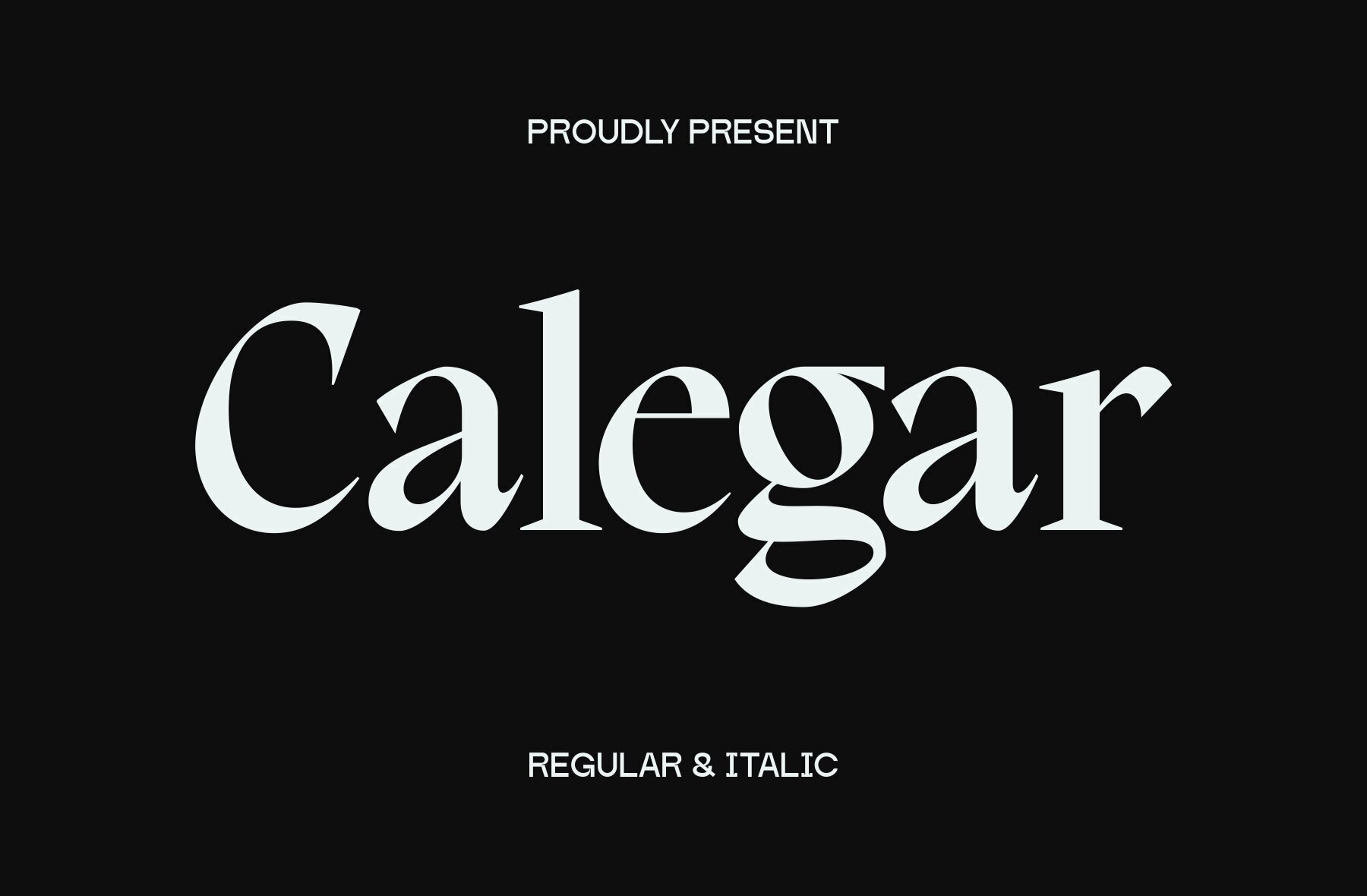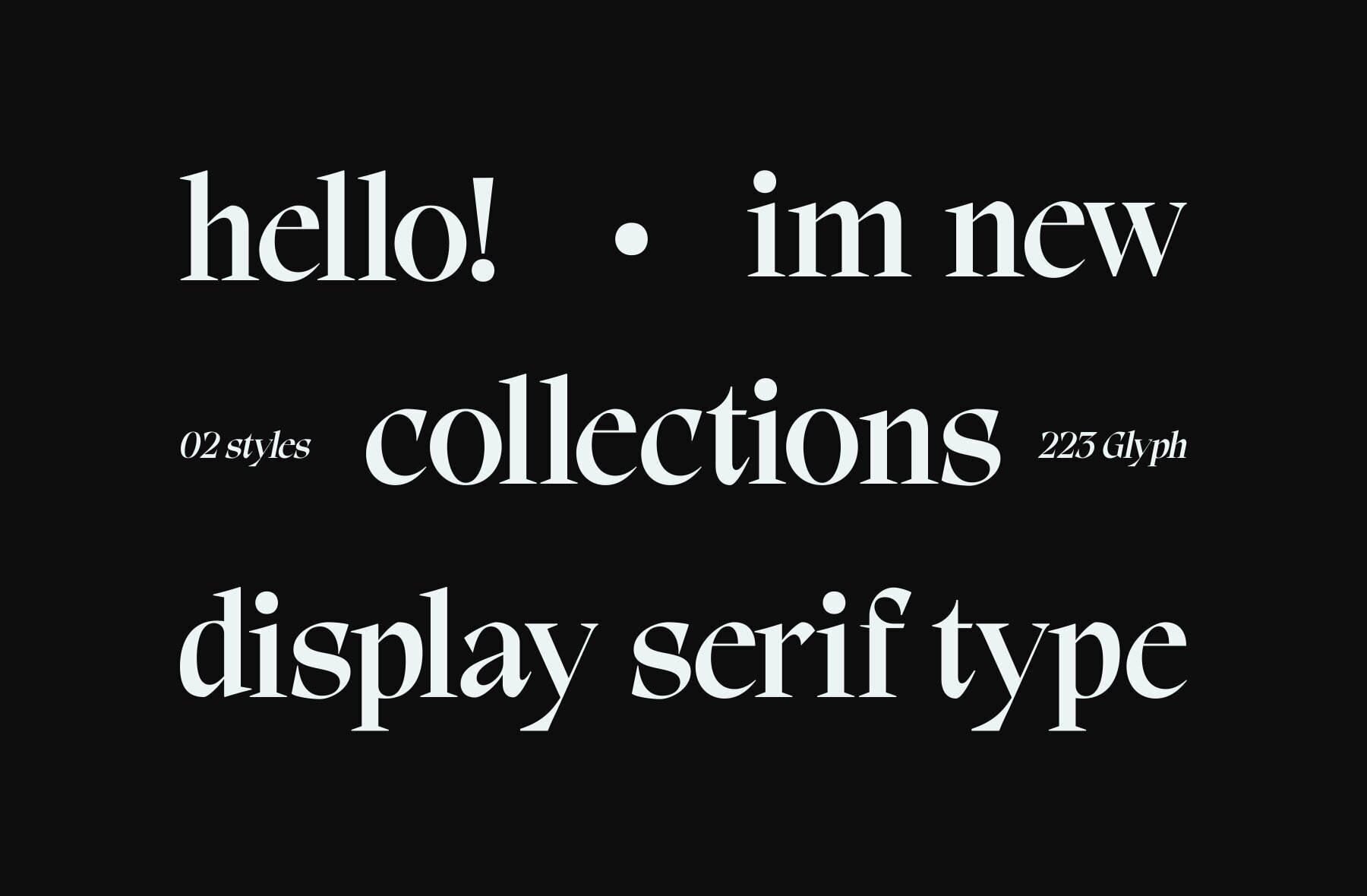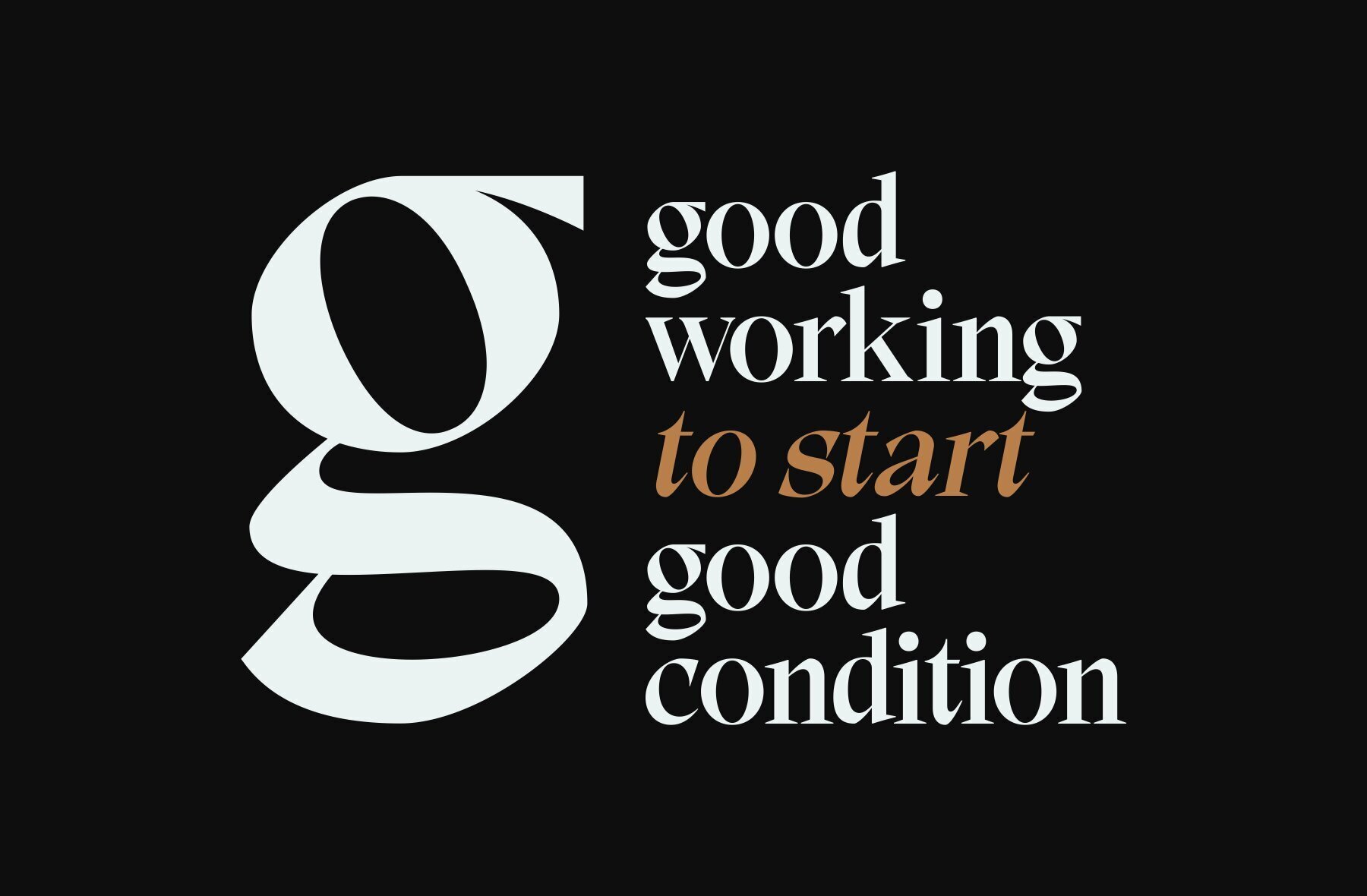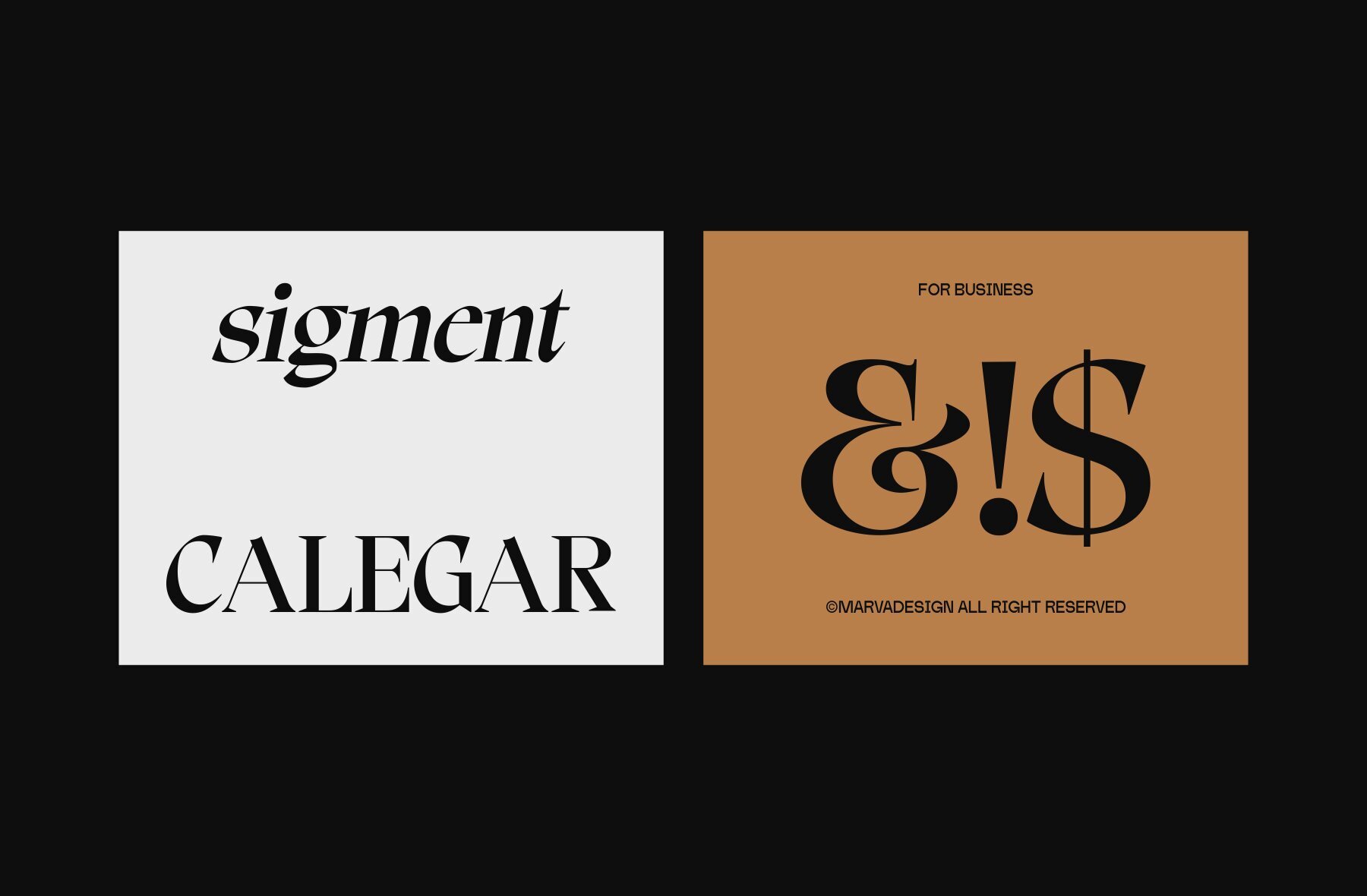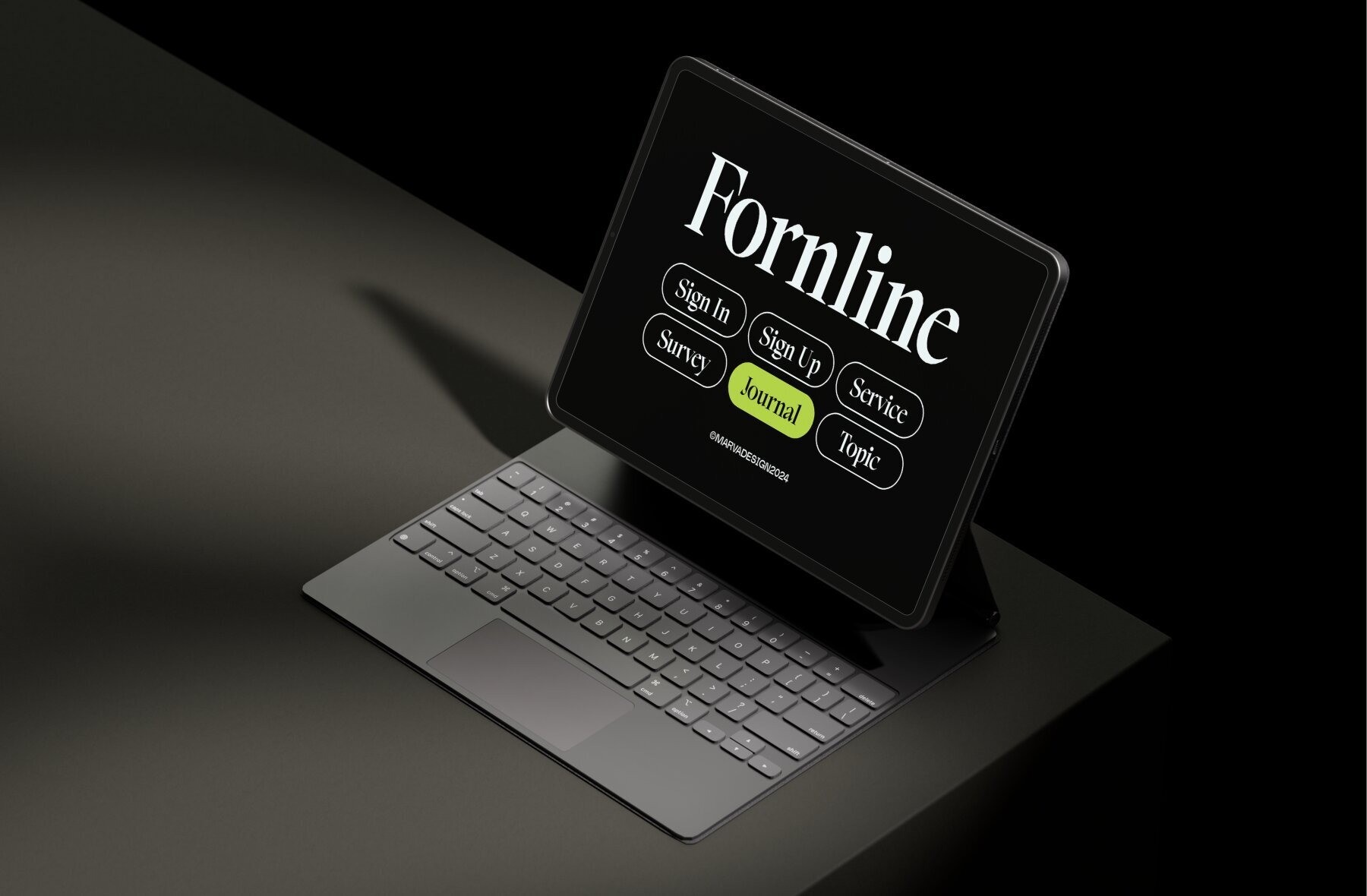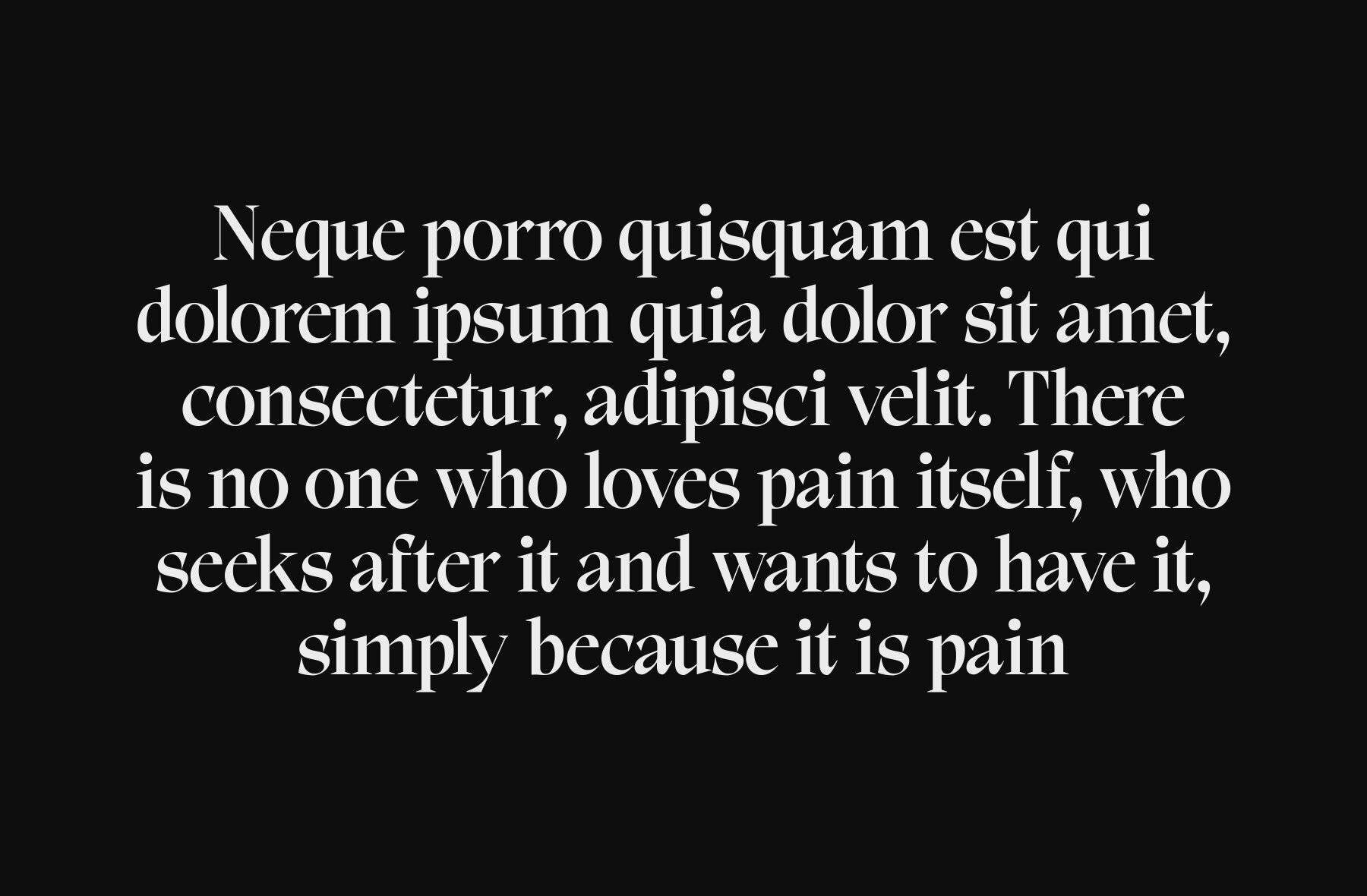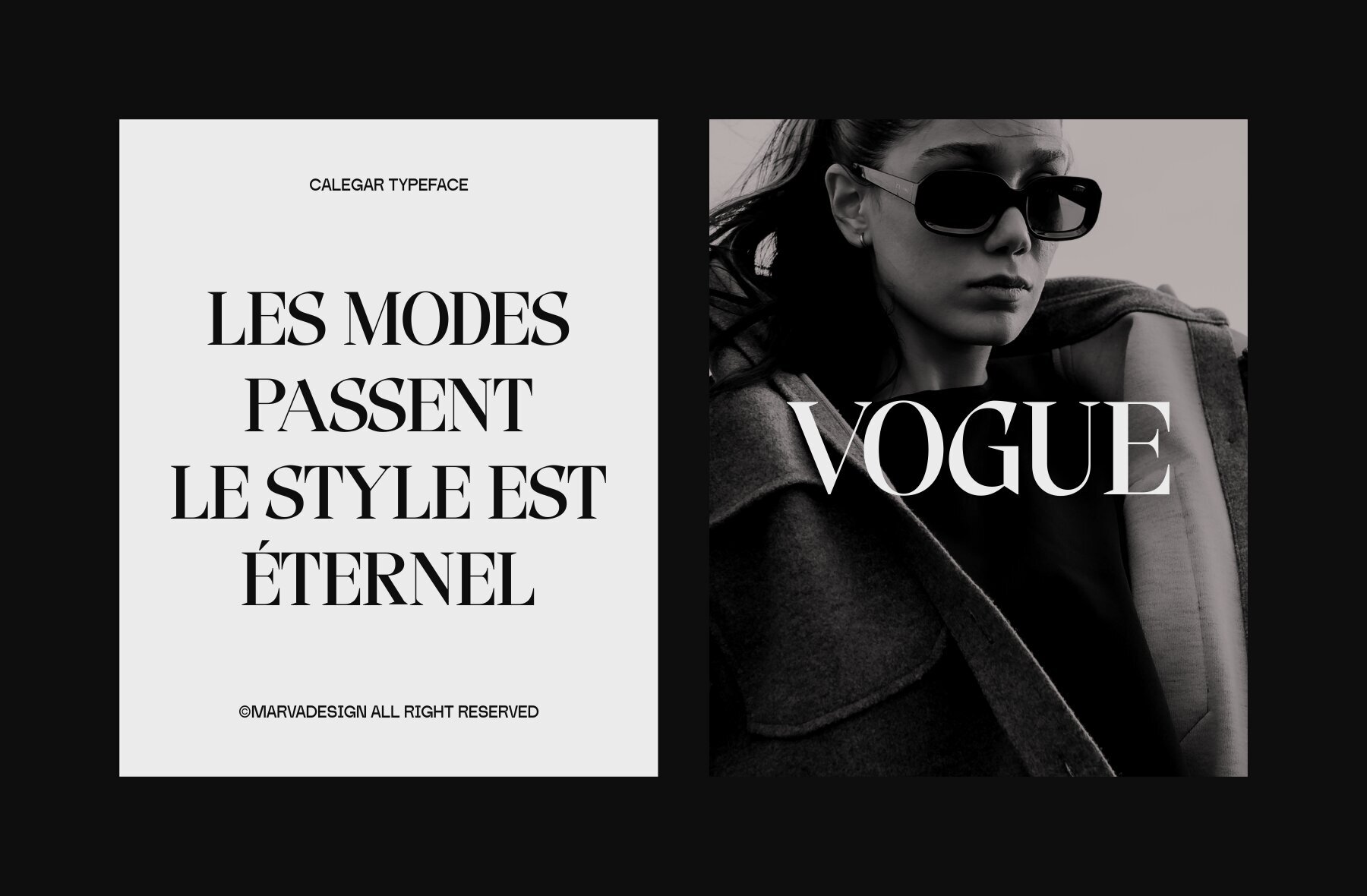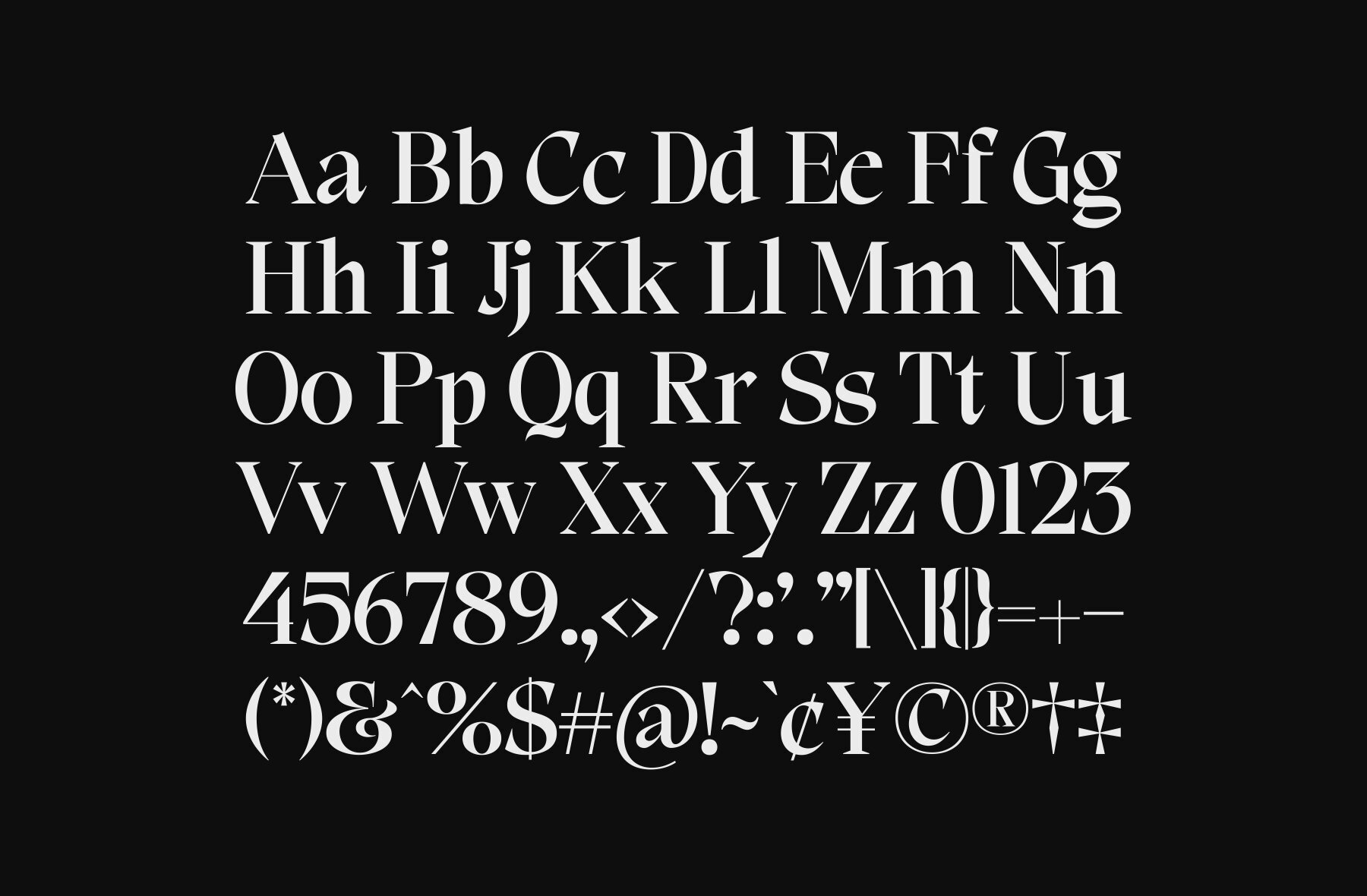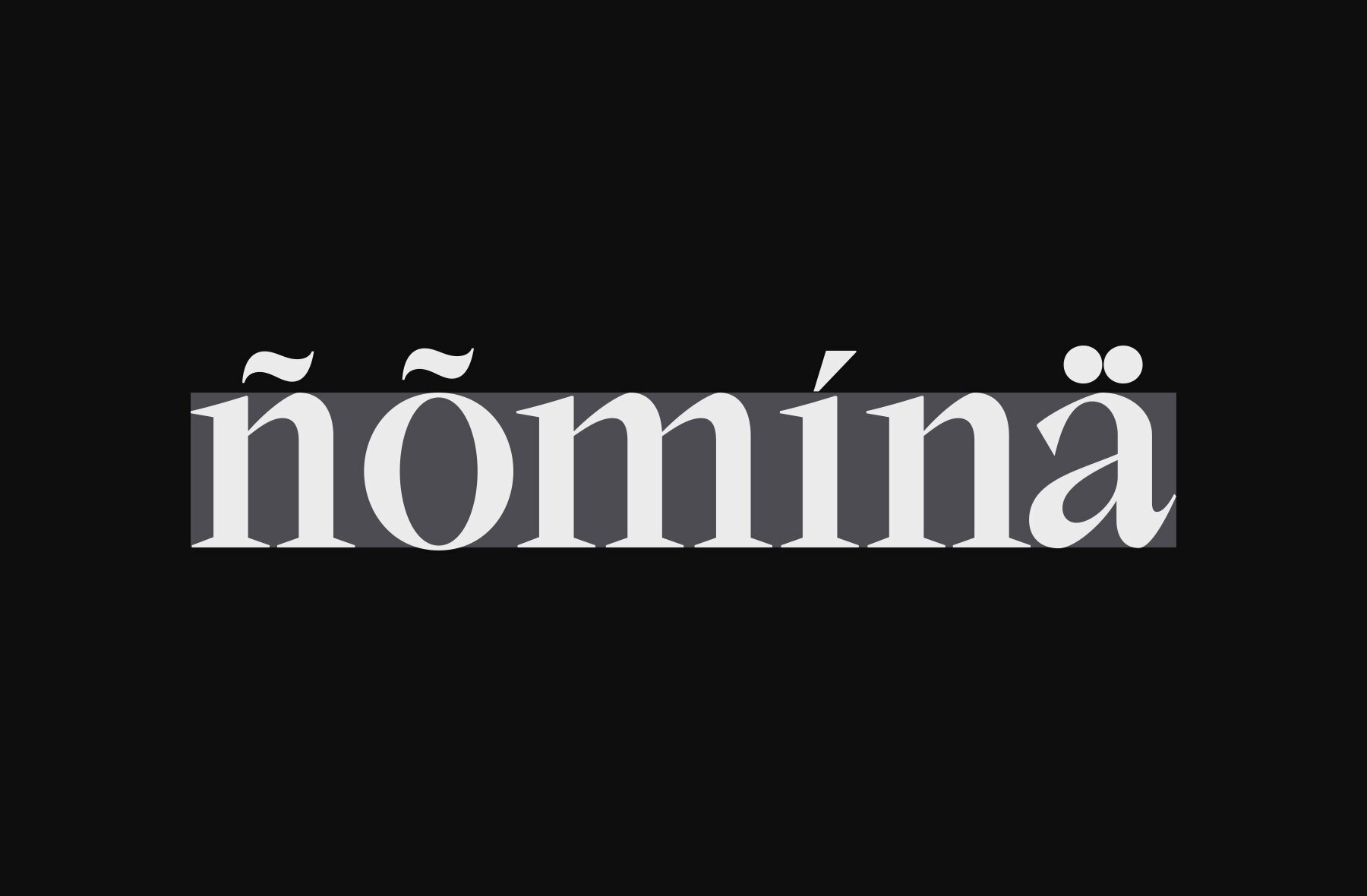
Calegar Font
Calegar is a serif display font that combines classic elegance with modern sophistication. It features two styles, regular and italic, distinguished by clean, refined lines and well-defined serifs. Ideal for corporate branding and brand identity projects, it offers a professional yet stylish appeal.
The balanced letterforms of Calegar ensure excellent readability across both print and digital media, while adding a touch of distinction. Its versatile design makes it a perfect choice for any professional use, from marketing materials to website content.